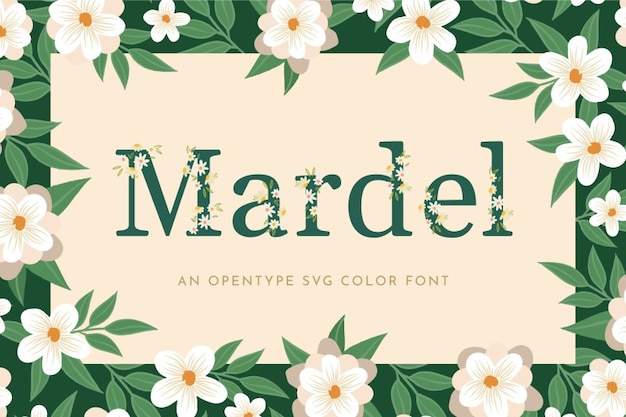
Mardel is a whimsical and elegant font inspired by nature's beauty, featuring delicate floral details reminiscent of daisies in bloom. Its graceful, flower-like curves evoke the charm of a garden in full swing, making it perfect for designs that celebrate nature, with a soft, organic feel that harmonizes with floral themes.